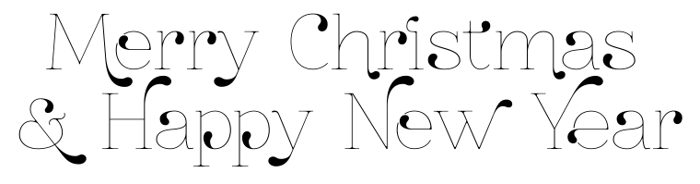
ZnikomitNo24 Font
Thin Style
Decorative serif font ZnikomitNo24 based on my Font Znikomit. For correct work Font need OpenType features: Standard Ligatures and Contextual Alternates.
14 years agoThis is quite an impressive font. I really like how it is so modern and neat looking.
14 years agoZnikomit?24 now with "Thin weight"
14 years agoGreat looking font!
8 years agohow elegant. love it
8 years agoI love the ornate elements to this one. Excellent.